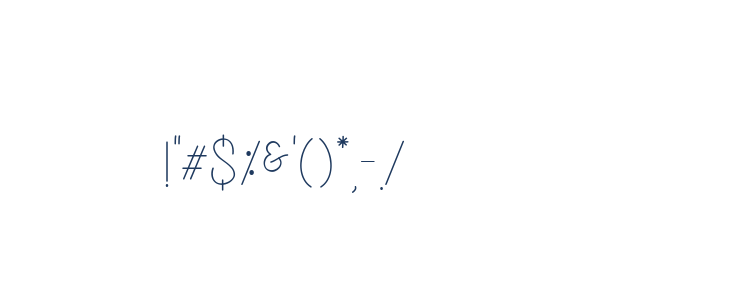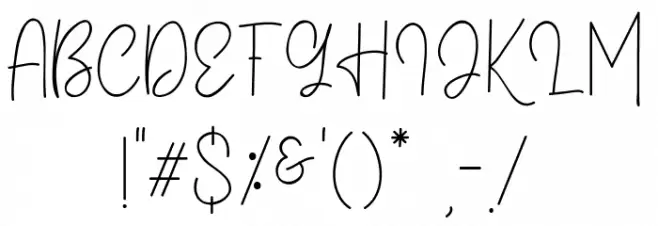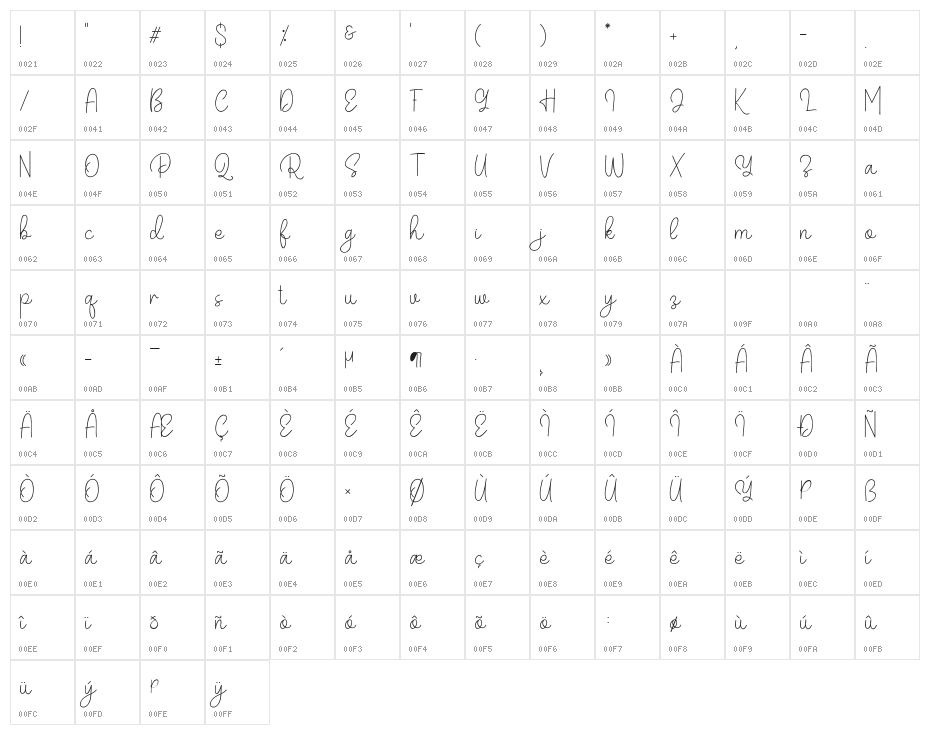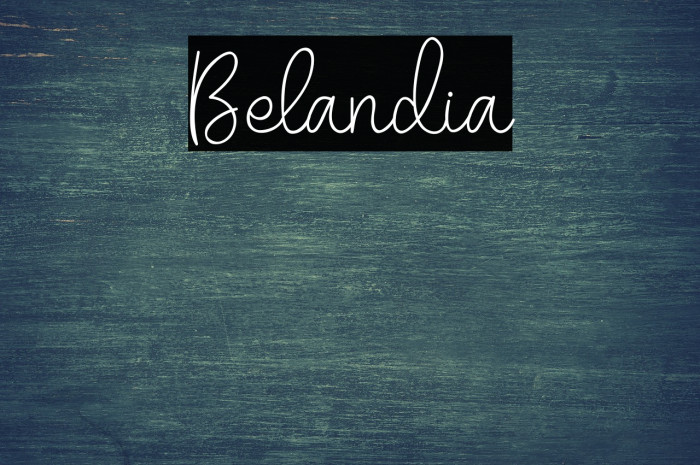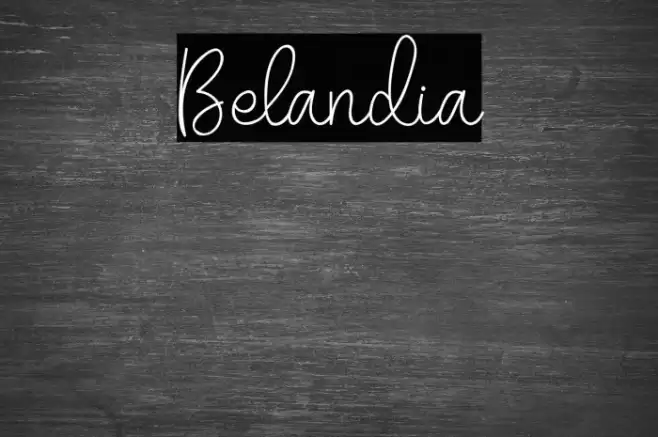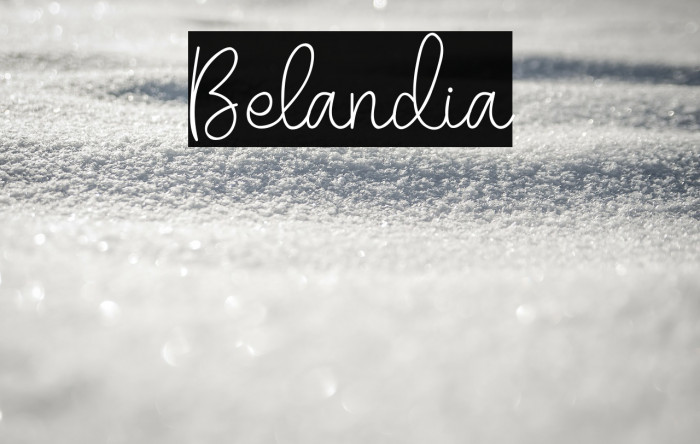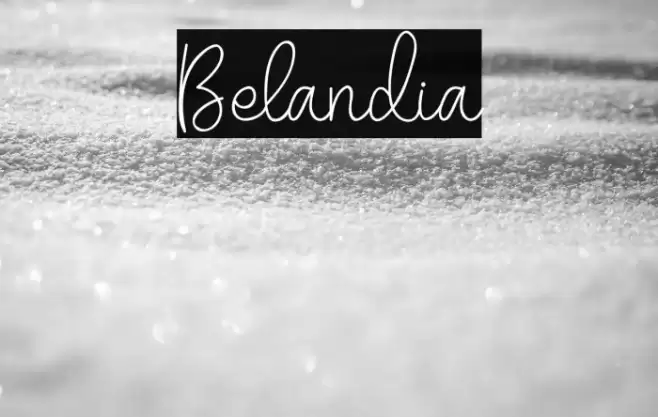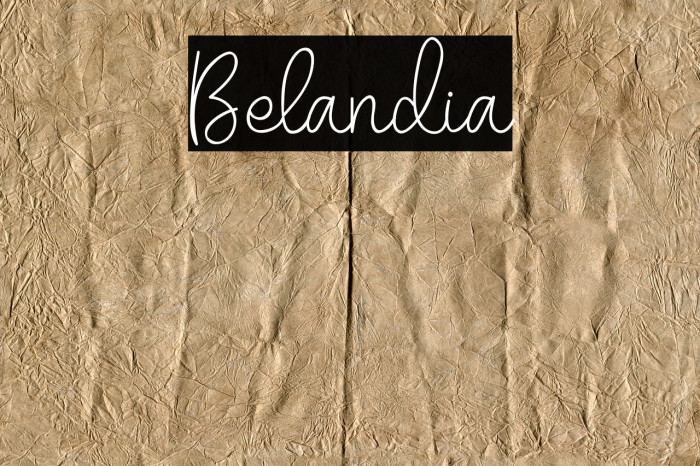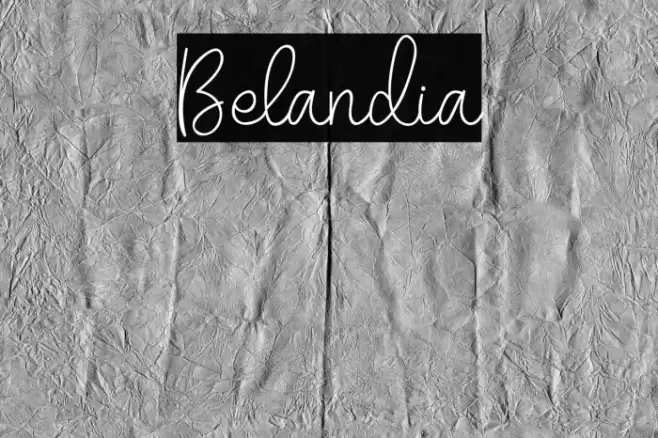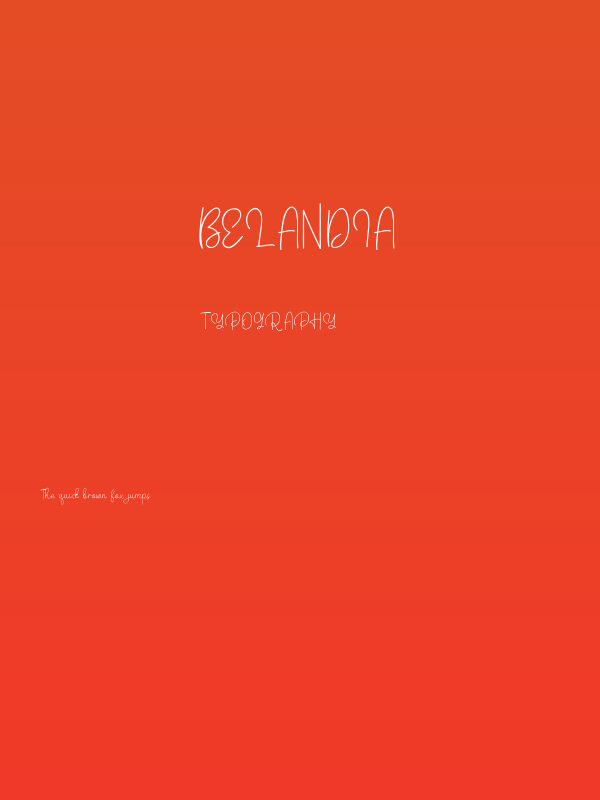
Belandia Font
Belandia Description
This font features a delicate and flowing script style, characterized by its elegant and cursive letterforms. The uppercase letters are tall and slender, with smooth curves and loops that give a sense of fluidity and grace. The lowercase letters maintain a consistent style, with gentle connections between each character, enhancing the script's cohesive appearance. The numerals and special characters follow the same elegant design, ensuring a harmonious look across all text. This font exudes a sense of sophistication and charm, making it ideal for projects that require a touch of elegance.